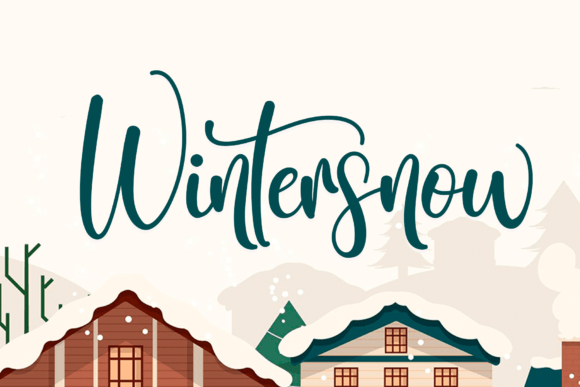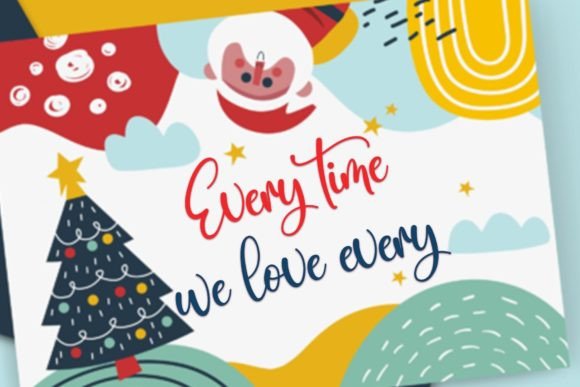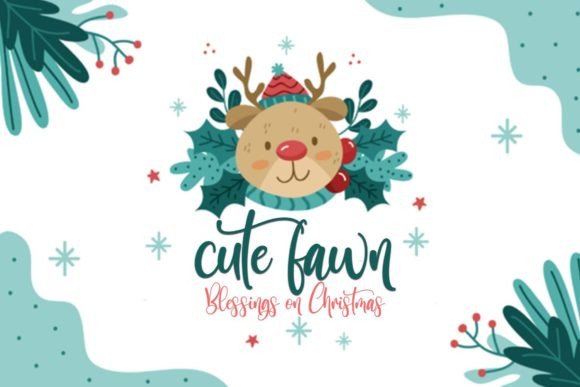
Wintersnow Font
About Wintersnow Font
Wintersnow is more than just a font; it’s a superb handwritten masterpiece meticulously designed to make your work stand out with its elegant and curvy lines. Whether you’re embarking on product packaging, a branding project, magazine covers, social media graphics, a wedding invitation, or simply expressing words above a background, Wintersnow is the epitome of sophistication and uniqueness.
Envision the impact of Wintersnow on your product packaging—a perfect fusion of elegance and individuality. The graceful, curvy lines of Wintersnow create a distinct aesthetic that elevates your branding projects, making them not only memorable but also visually captivating. Its versatility enables it to seamlessly adapt to diverse design contexts, establishing itself as the go-to choice for a myriad of creative endeavors.
Imagine Wintersnow gracing the covers of magazines, infusing each layout with charm and personality. Its handwritten elegance becomes a visual statement, drawing attention and ensuring a captivating reader experience. The same allure extends to social media graphics, where every post becomes an opportunity to showcase the beauty of this superb font.
For wedding invitations, Wintersnow becomes a natural and enchanting choice, infusing the event with a sense of romance and refined beauty. Its curvy lines add a unique flair, transforming each invitation into a work of art that reflects the significance of the occasion.
In essence, Wintersnow transcends being a mere typeface; it’s a design instrument that transforms your projects into standout creations. Its elegant and curvy lines become the distinctive touch that sets your work apart. Choose Wintersnow to express your creativity with sophistication and to make a lasting impression across a spectrum of design applications.